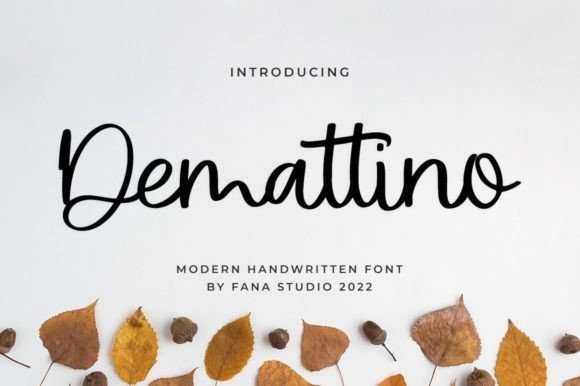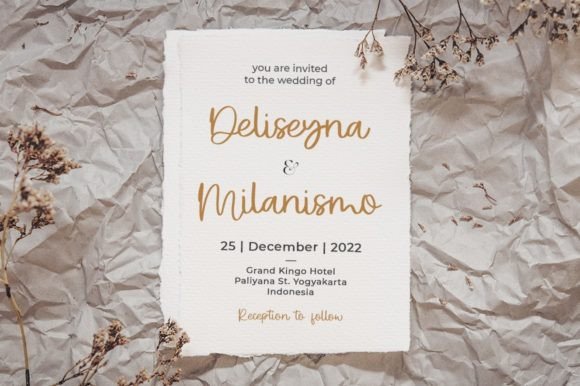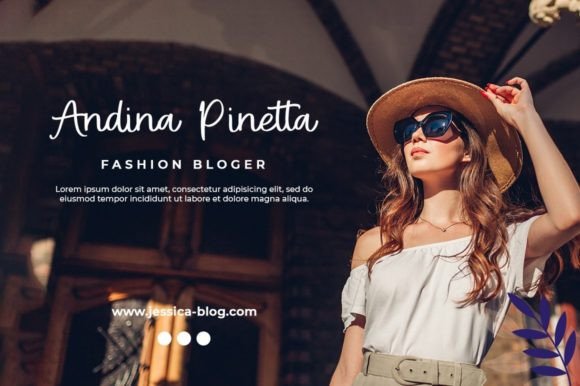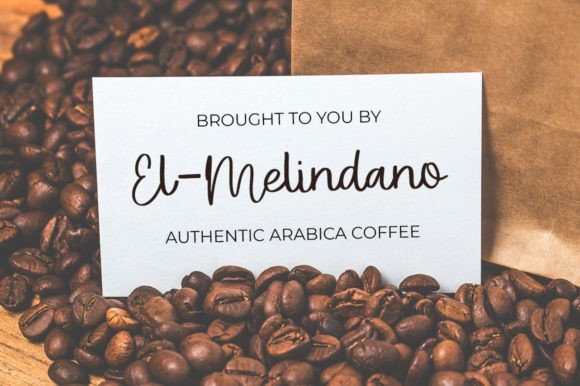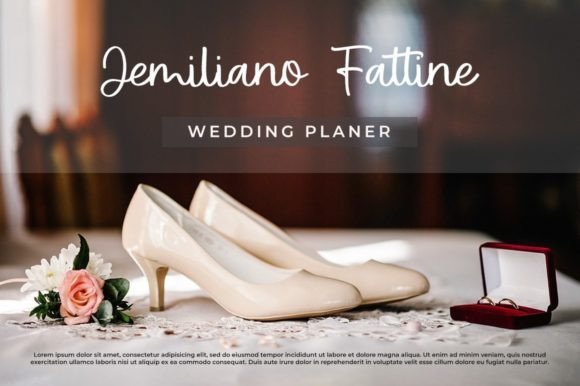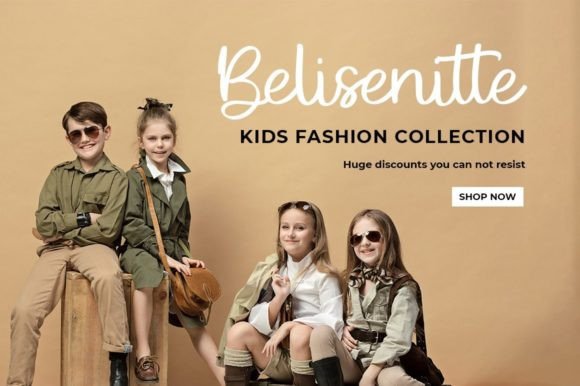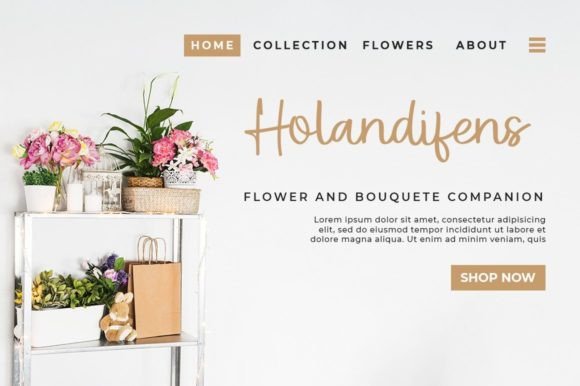
Give Your Designs a Personal Touch with Demattino Script
Have you ever stared at a blank page, waiting for that spark of creativity to strike? For many designers, it’s that one moment when everything falls into place, and the perfect idea is born. It’s the moment when you know exactly what you want to say, and how you want to say it. For those who crave that extra special something, Demattino Script is here to elevate your designs to the next level.
This beautiful script font is designed to add a touch of elegance and sophistication to your work. Whether you’re creating logos, invitations, or social media posts, Demattino Font brings a unique handwriting feel that’s perfect for making a lasting impression. As a designer, you’ll appreciate the versatility of this font, which can be used in a wide range of projects, from branding and packaging to photography and special events.
Demattino Font Key Features
- Unique Characteristics: The font features a unique blend of modern and vintage elements, with intricate details and ornaments, adding a touch of elegance to any design.
Demattino Font Review
Overall, I was pleasantly surprised by Demattino Font. It’s a beautiful script font that feels elegant and sophisticated. ✨ The font’s fluid curves and organic feel make it perfect for projects that require a touch of whimsy and personality. ✨
- Unique letterforms: Demattino Font’s script style is truly one-of-a-kind, and its unique letterforms add a touch of visual interest to any project.
- High-resolution glyphs: The font’s high-resolution glyphs ensure that it looks sharp and clear, even at larger sizes.
- Comprehensive character set: Demattino Font includes a wide range of characters, including punctuation, numbers, and special characters.
That being said, there are a few limitations to consider: ⚠️ The font’s italic and bold styles are not as polished as the regular weight, and may require some additional tweaking to get right. ⚠️ Additionally, the font’s OpenType features are not as comprehensive as some other fonts on the market.
Overall, I would recommend Demattino Font for projects that require a unique, elegant script style. While it may have some limitations, its strengths far outweigh its weaknesses, and it’s a great addition to any designer’s font library.
Tips for Getting the Most Out of Demattino Font
For optimal results, use Demattino Font in conjunction with bold or italic text to add emphasis.
Experiment with different font sizes and line spacing to create visually appealing layouts.
Demattino Font is ideal for:
Creating elegant and sophisticated typography for business cards, resumes, and marketing materials.
Designing eye-catching headlines and titles for publications and websites.
Adding a touch of sophistication to wedding invitations and event materials.